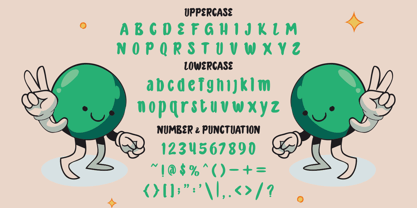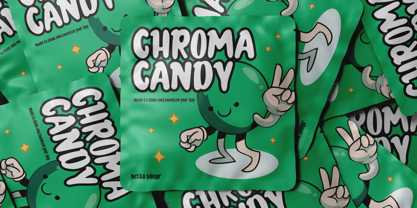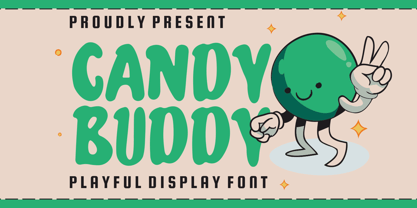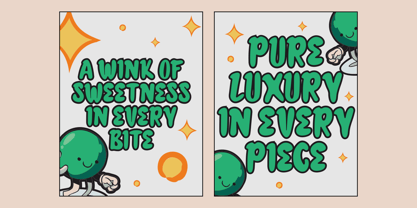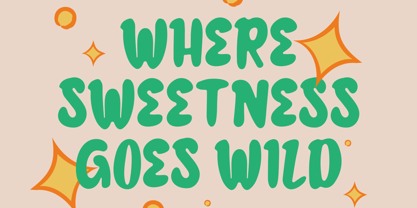
Candy Form
by Shanaf
The Candy Form Font Family was designed by Yesie Erma Yunita and published by Shanaf. Candy Form contains 1 styles. More about this family
Candy Form Display Font features thick, rounded letterforms with soft and inflated shapes. The characters carry a heavy weight with minimal contrast between strokes. Edges appear smooth and curved, creating a friendly and approachable feel. The height proportion stays balanced, with slightly short ascenders and descenders. This keeps words compact and easy to arrange in logo systems. The bold structure gives strong visibility at large sizes. Letters feel slightly irregular, adding personality without harming readability. The overall texture appears soft rather than rigid or geometric. This style fits playful display typography with a cheerful tone. It leans toward modern fun rather than vintage tradition. The font works perfectly for themes centered on candy, sweets, and joyful branding. Candy Form Display Font helps brands stand out with expressive shapes and strong visual impact. The font suits logo design, packaging, posters, and bold advertising headlines. It performs well in brand identities for candy shops, snack brands, dessert cafes, and confectionery businesses. The rounded forms communicate sweetness and friendliness in every word. Short phrases and taglines feel lively and engaging. The font also fits greeting cards, invitations, stickers, book covers, and magazine titles. Creative studios can use it for playful campaigns and product launches. Its thick strokes ensure clear readability from distance. This makes it effective for storefront signage and promotional materials. The display nature keeps it ideal for titles and headlines rather than long paragraphs. Candy Form Display Font strengthens brand personality through bold, joyful letterforms that attract attention quickly.